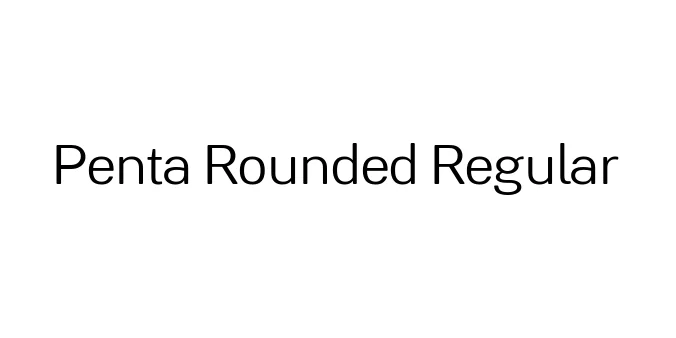
Penta Rounded Regular
Designed by Penta Type
Penta Rounded Regular is a modern geometric sans-serif typeface characterized by its soft, circular terminals and balanced proportions. Developed as a friendlier alternative to rigid technical fonts, it bridges the gap between precision and approachability, making it a staple for contemporary digital interfaces and minimalist graphic projects.
The font features a high x-height and open counters, ensuring excellent legibility even at smaller sizes or in dense blocks of text. Its rounded aesthetic provides a playful yet professional tone, widely adopted by tech startups and lifestyle brands seeking a clean, welcoming visual identity that stands out from traditional sharp-edged typography.
Penta Rounded Regular Best Uses
Ideal for buttons and navigation elements due to its high legibility and soft appearance.
Perfect for startups and tech companies looking for an approachable and modern visual identity.
Excellent for user interfaces where a clean, soft, and readable look is required.
Great for posters and social media graphics that need a contemporary, friendly vibe.